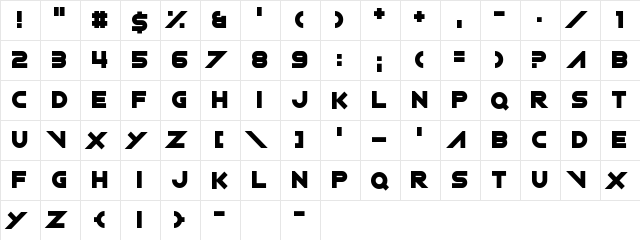
XXIX Regular
| Designer | Allison James |
Design Context for XXIX Typeface
XXIX takes a measured approach to typography — its balanced proportions and neutral character make it a reliable workhorse for both digital and print work.